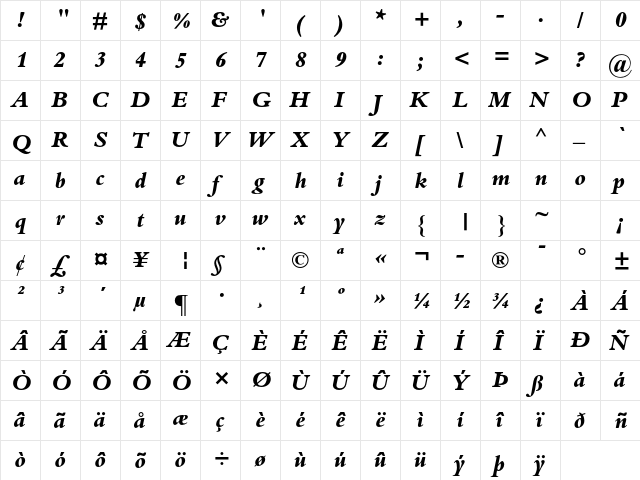
Bembo Std Extra Bold Italic Font Preview
| Designer | Stanley Morison, Monotype Staff |
Design Context for Bembo Std Typeface
Bembo Std takes a measured approach to typography — its balanced proportions and neutral character make it a reliable workhorse for both digital and print work. Its italic angle brings a sense of urgency and motion to the letterforms. Its bold stroke weight gives it real presence on the page.
Pro Tip: Try Bembo Std for annotation and caption copy alongside an upright companion — the contrast in angle creates a dynamic but ordered typographic system.